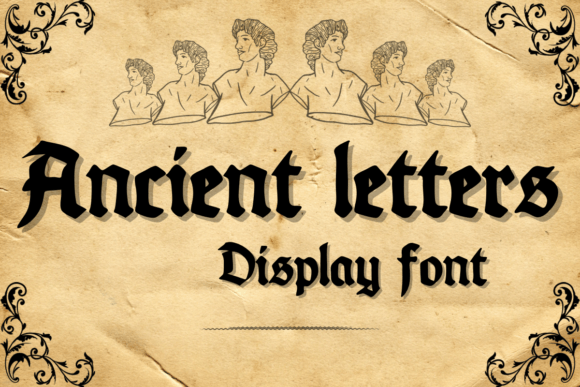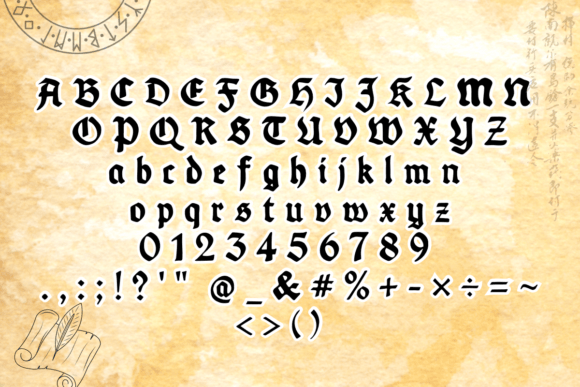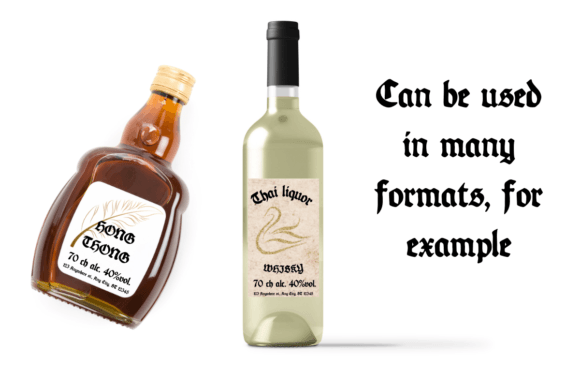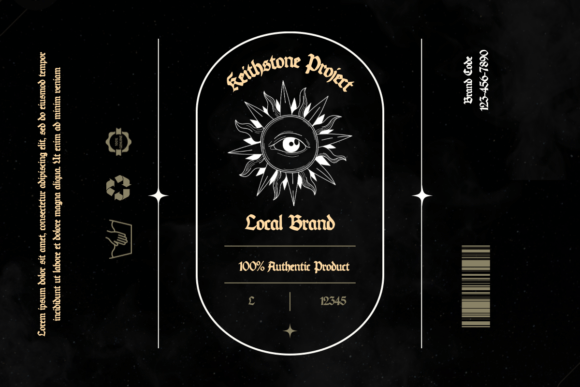
Ancient Letters Font
About the Ancient Letters Font
The Ancient Letters Font offers a perfect balance of form and function for your design needs. Ancient letters is a blackletter font. You can use it for taking notes, writing a diary, or making greeting cards. However, you can still use it for other designs, such as banners, content, mugs, cards, shirts, stationery, social media posts, and more!
Ancient Letters’ strong, gothic character makes it ideal for headlines, short text blocks on posters, or branding applications requiring a bold, historical feel. It excels in conveying authority and tradition, perfect for projects related to heritage, law, or luxury goods. However, its intricate detail makes it unsuitable for body text or UI elements where readability is paramount. Long paragraphs set in Ancient Letters will be difficult to decipher.
Pairing Ancient Letters effectively requires considering its assertive personality. A clean, geometric sans-serif like Futura would provide a modern counterpoint, creating visual interest and improved readability in multi-font layouts. Conversely, a classic serif like Garamond could offer a sophisticated, yet subtly contrasting, pairing for applications needing a more traditional feel.
The font’s overall personality is best described as authoritative and traditional, conveying strength and a sense of history. Avoid using it in contexts that demand friendliness or playfulness; instead, focus on projects that benefit from a feeling of established legacy and gravitas.
Ancient Letters Font Example